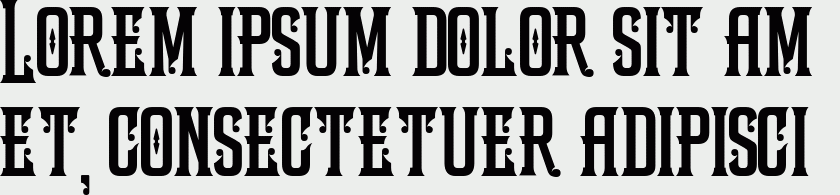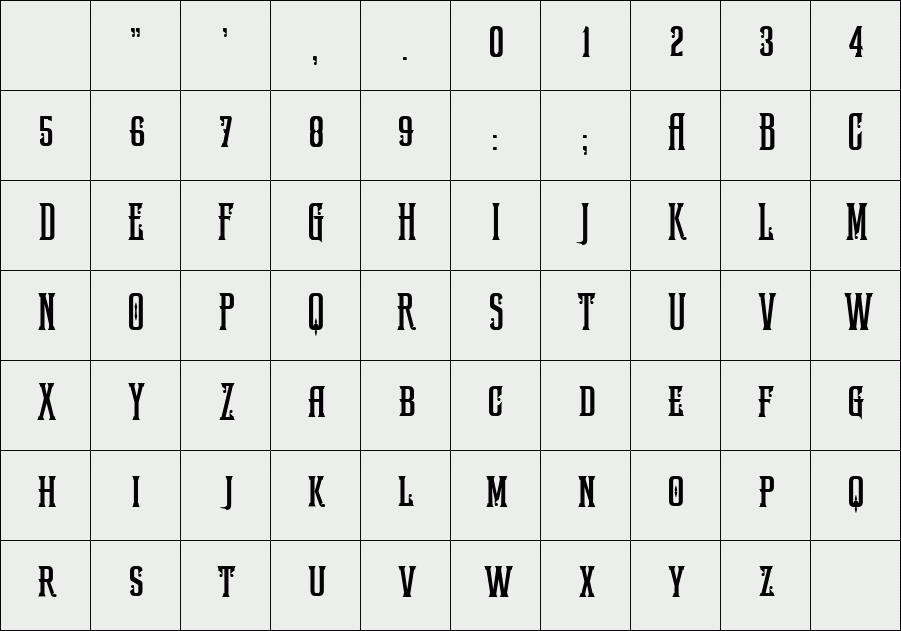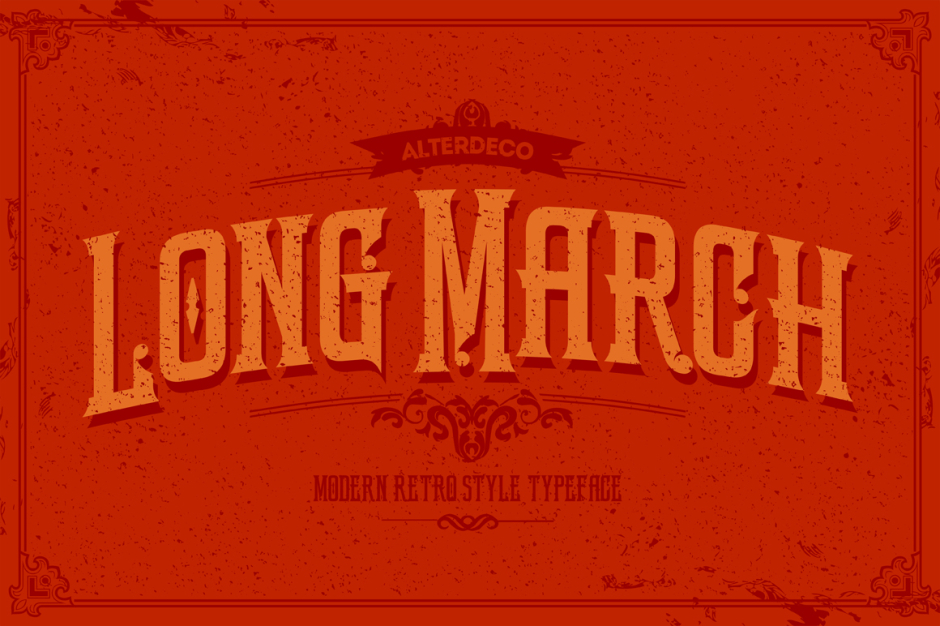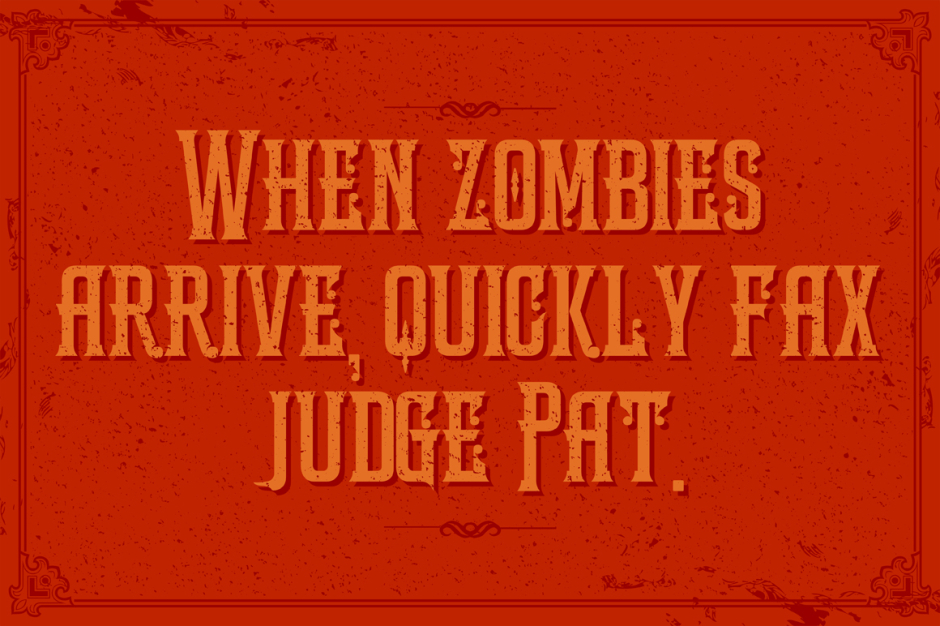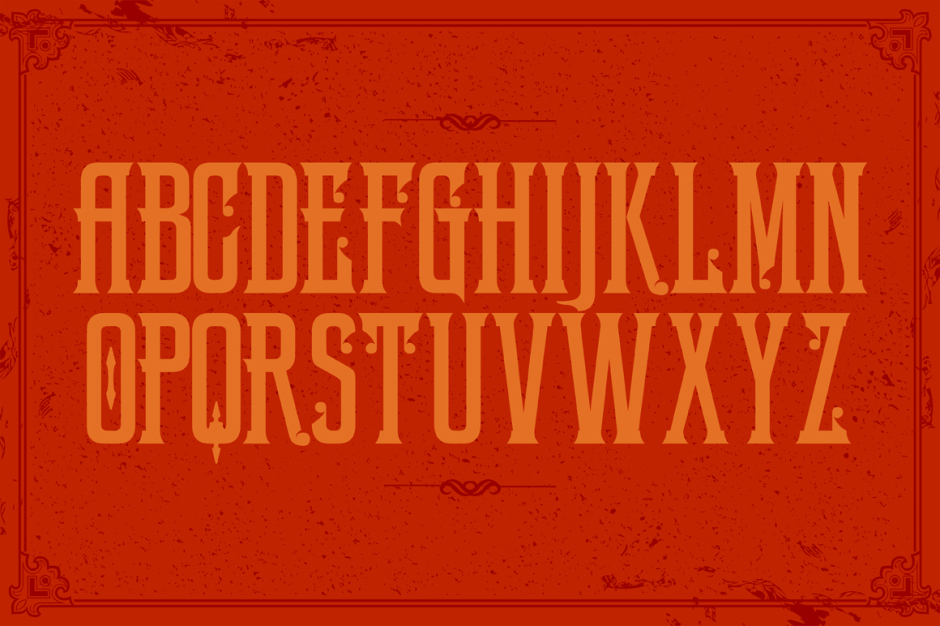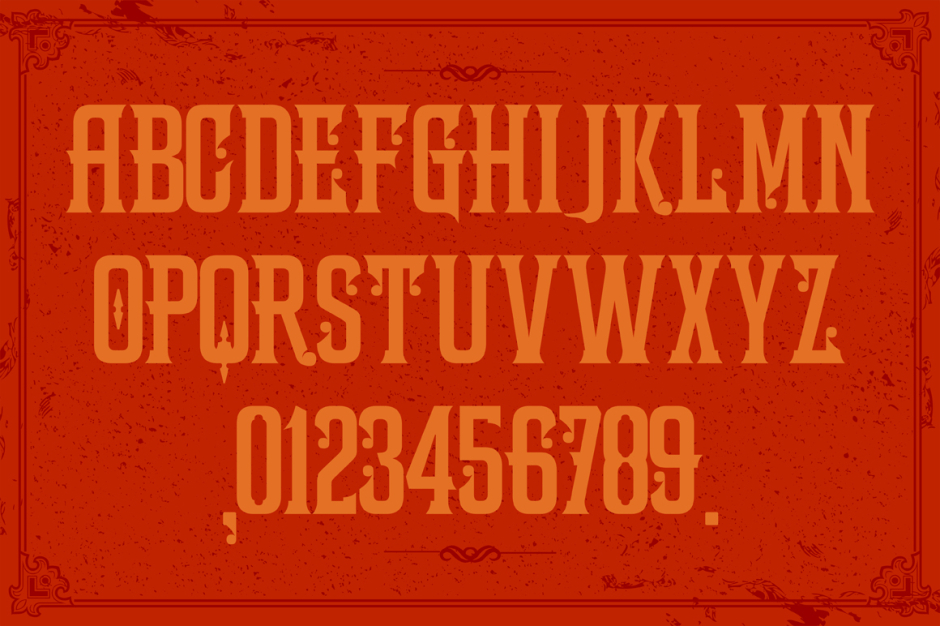
LongMarch
LongMarch, is a modern retro style typeface. you can use it to create some headline design, t shirt/apparel design, or even a logotype. inside the zip is otf and ttf font files, and some work previews. thanks for purchasing it, if you have any feedback please contact me at helloadit@gmail.com